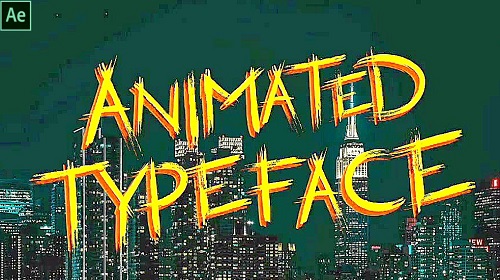
Anarchy Animated Typeface 87 - Project for After Effects
Anarchy Animated Typeface is an amazing After Effects template that contains the entire English alphabet and numbers 0-9. You can use them to
make your own unique looking word animations. You can use the intelligent color controller to create some interesting results.